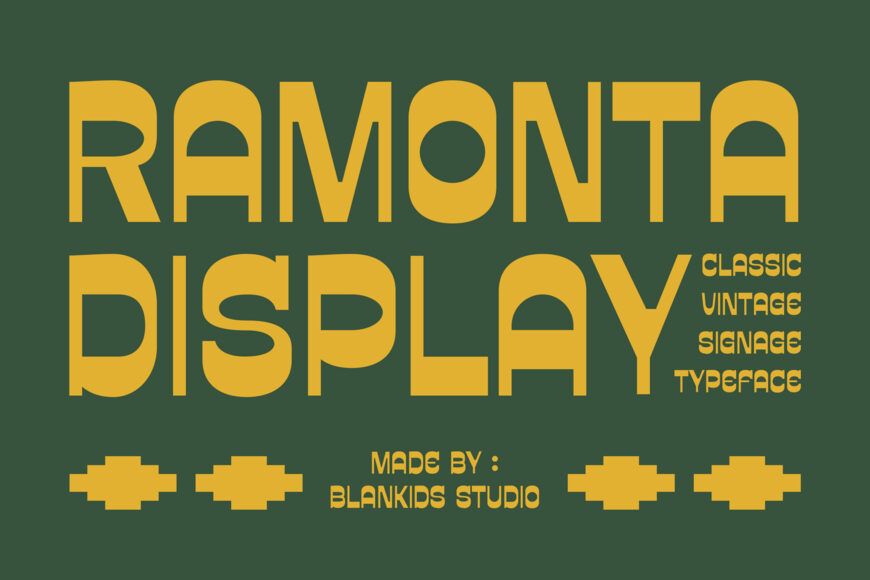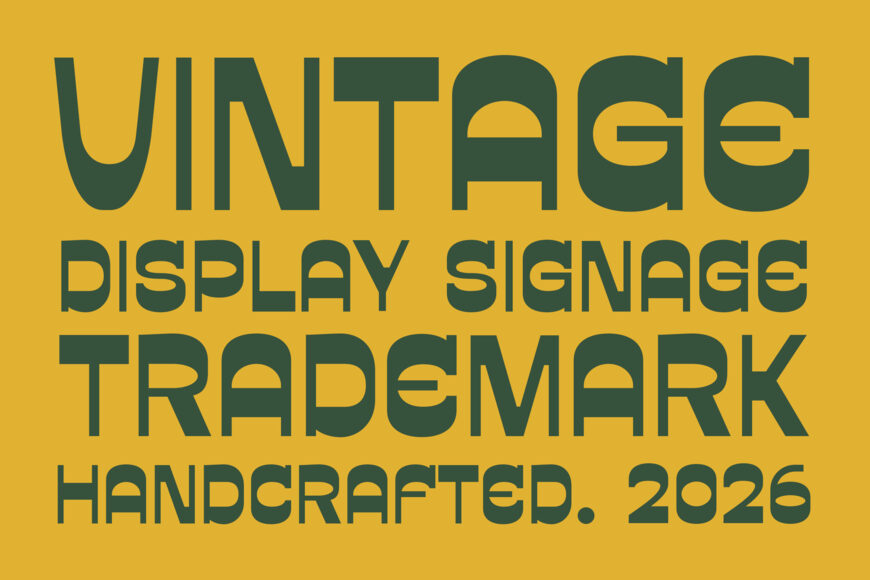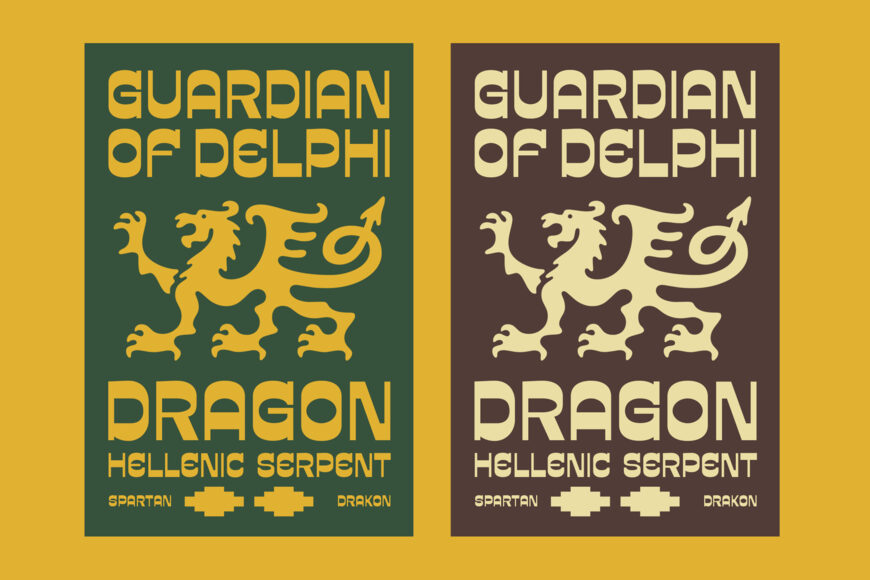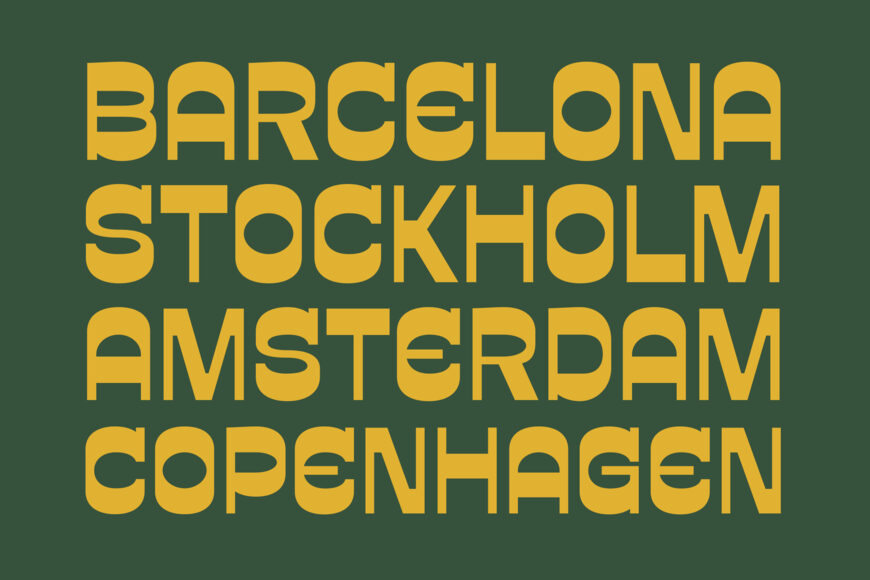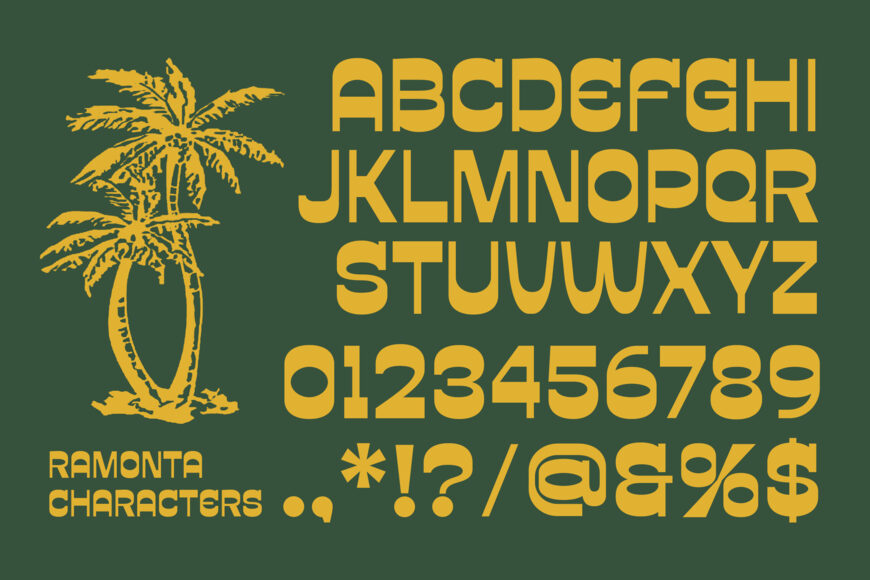
Ramonta Font
Ramonta is a bold retro display font inspired by classic vintage signage, geometric lettering, and nostalgic graphic design. With its strong shapes, rounded details, and distinctive character, Ramonta is designed to make your headlines, logos, posters, and branding stand out.